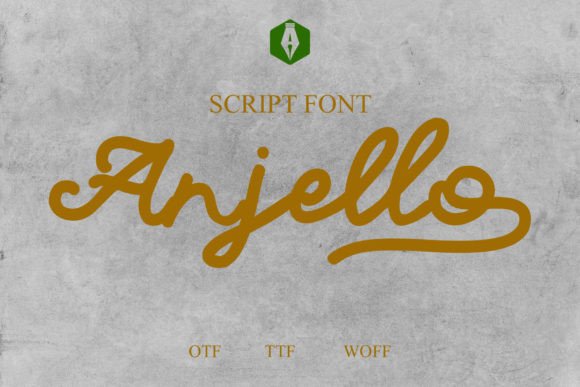
Discover the Enchanting World of Anjello Font: Where Whimsy and Wonder Collide
Anjello Font introduces readers to a captivating world where whimsy and wonder collide in a seamless dance of storytelling and artistry. This unique comic script, penned in a monoline style, brings forth a visually stunning and cohesive narrative that unfolds with each stroke of the pen.
The Art of Monoline Storytelling
The characters in Anjello come to life in a distinct, fluid fashion, their expressions and movements captured with a sense of grace that adds depth to their personalities. The monoline technique, with its consistent line weight, not only serves as an aesthetic choice but also plays a crucial role in maintaining a harmonious visual rhythm throughout the comic.
This artistic approach allows the reader to focus on the narrative, unhindered by intricate details or varying line weights. The simplicity of the monoline style enhances the clarity of the story, making it accessible to a wide range of readers. The clean and elegant strokes create a timeless quality, inviting readers to revisit the story repeatedly and discover new details with each reading.
A World of Wonder and Whimsy
In this enchanting universe crafted by Anjello, the storyline takes unexpected twists and turns, seamlessly blending humor, drama, and moments of heartfelt emotion. The monoline script’s simplicity allows readers to easily follow the characters’ adventures while immersing themselves in the rich tapestry of the comic’s world.
Anjello’s world is one of wonder and magic, where the boundaries of reality are gently stretched, and the imagination knows no limits. The characters are crafted with care and attention to detail, making them relatable and endearing to readers of all ages.
“The monoline style is not just an artistic choice; it’s a deliberate decision to create a sense of harmony and balance in the narrative.” – Anjello
The Power of Storytelling through Simplicity
Anjello is not just a visual feast but also a testament to the power of storytelling through simplicity. The deliberate choice of a monoline style demonstrates a commitment to artistic discipline while inviting readers to explore the magic that unfolds within the pages.
This approach shows that simplicity can be a powerful tool in storytelling, allowing the narrative to take center stage and connect with readers on a deeper level. The monoline style’s clean and elegant strokes create a sense of sophistication, making the comic appealing to readers who appreciate the art of subtlety.
A Timeless Appeal
With its distinctive charm and thoughtful execution, Anjello promises to captivate audiences of all ages and leave a lasting impression in the realm of comic artistry. The comic’s timeless appeal lies in its ability to transcend generations, speaking to readers who appreciate the beauty of simplicity and the power of storytelling.
Anjello’s world is one that readers will want to return to again and again, discovering new wonders and marvels with each visit. The comic’s enchanting universe, crafted with care and attention to detail, is a testament to the enduring power of imagination and creativity.
In conclusion, Anjello Font is a captivating world where whimsy and wonder collide in a seamless dance of storytelling and artistry. The unique monoline style, with its consistent line weight and clean strokes, creates a visually stunning and cohesive narrative that unfolds with each stroke of the pen.
With its distinctive charm and thoughtful execution, Anjello promises to captivate audiences of all ages and leave a lasting impression in the realm of comic artistry. Whether you’re a fan of comics, art, or simply storytelling, Anjello is a must-read that will leave you enchanted and inspired.